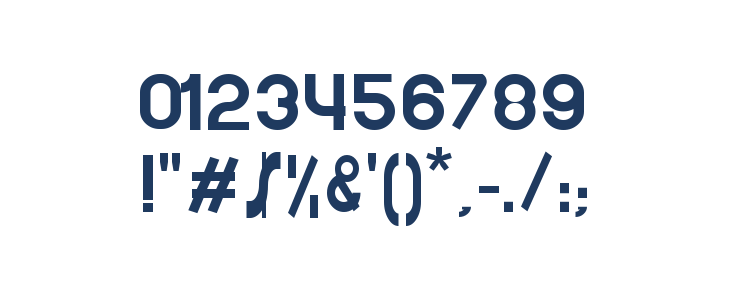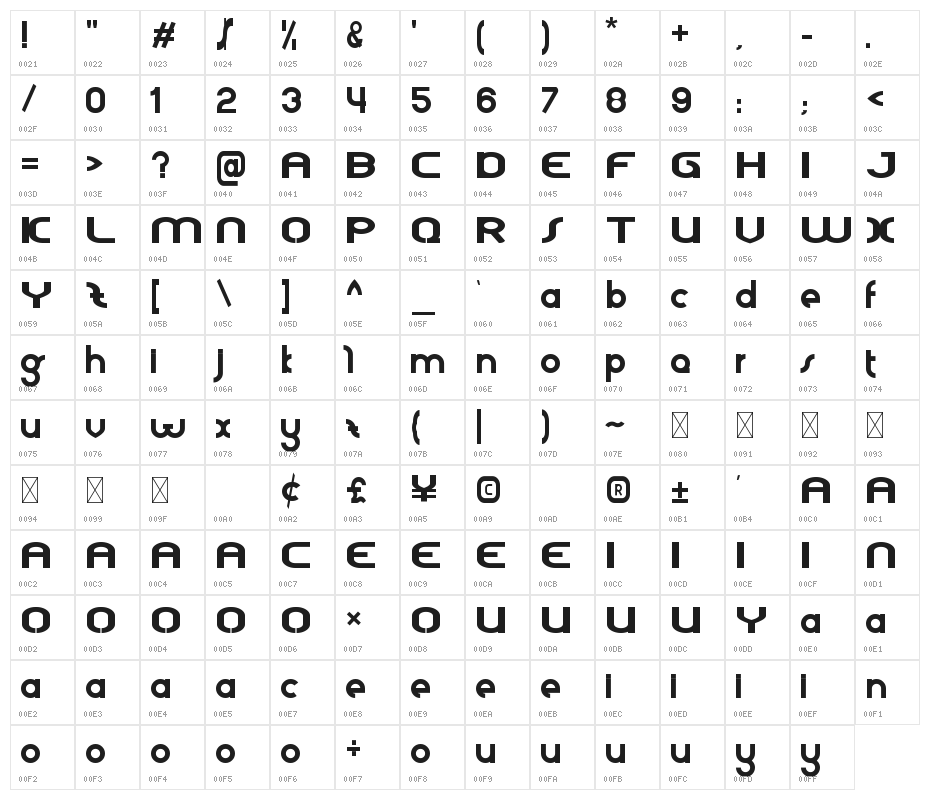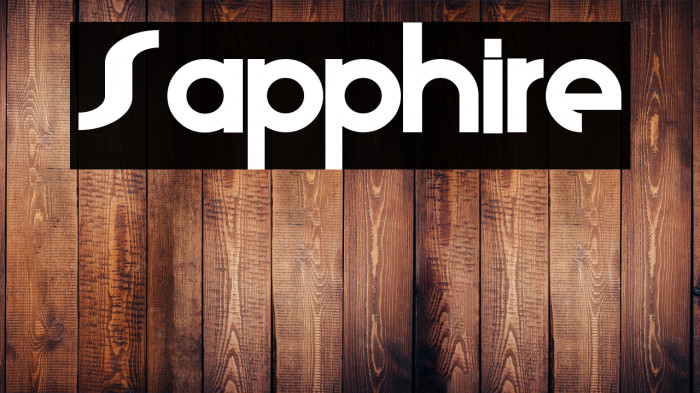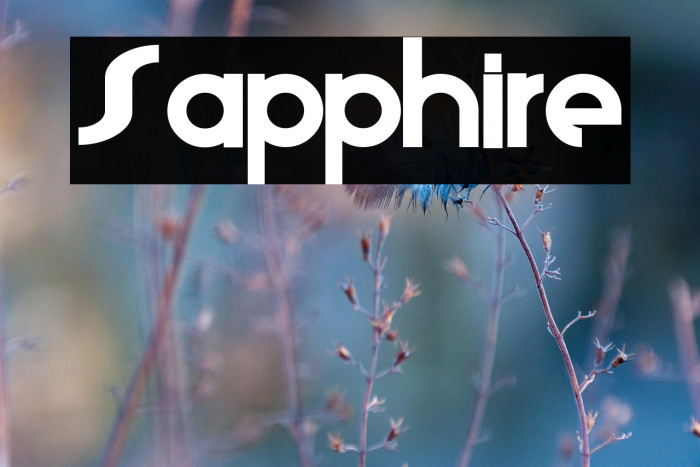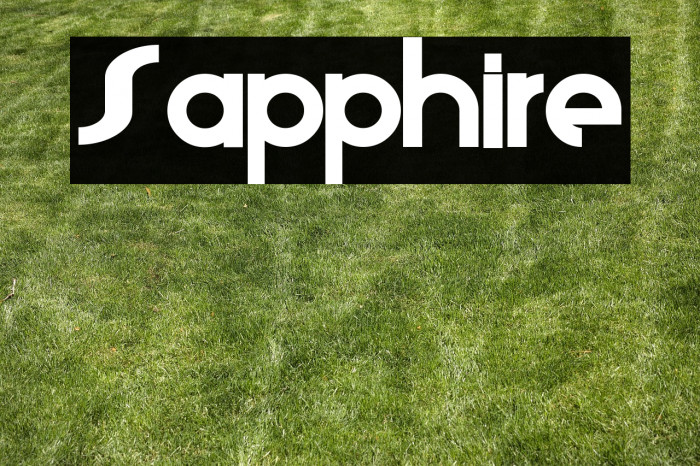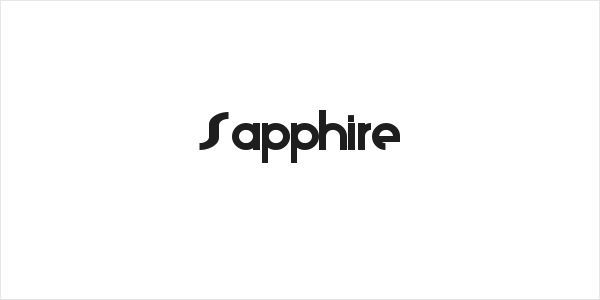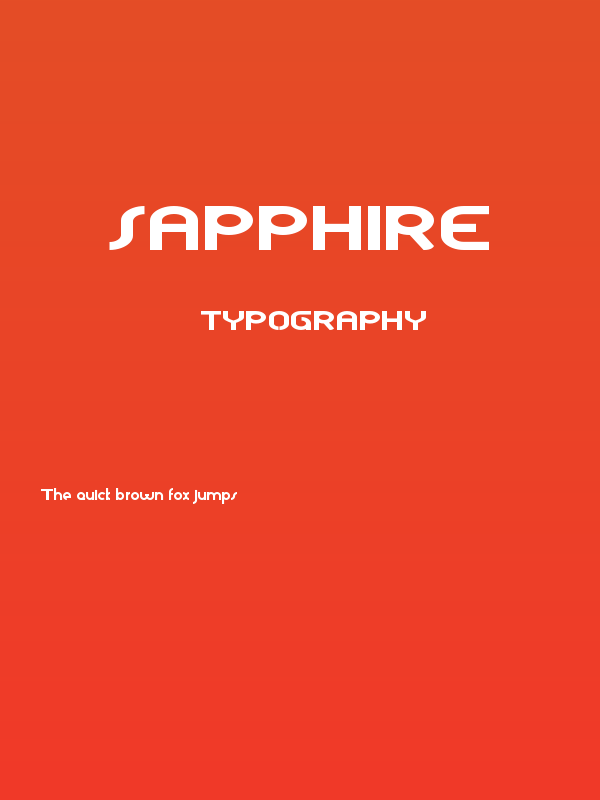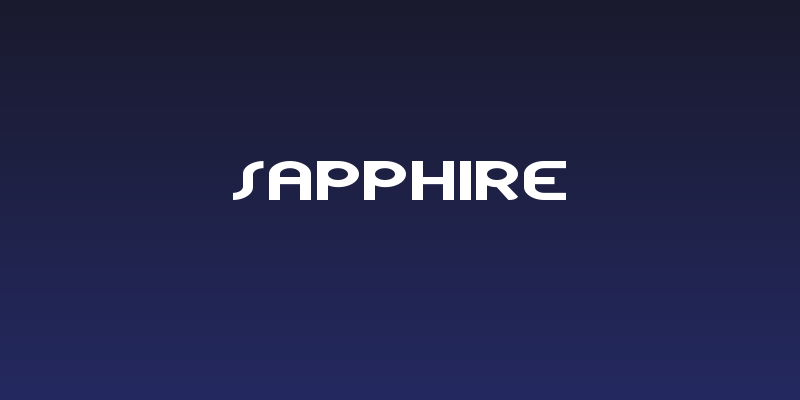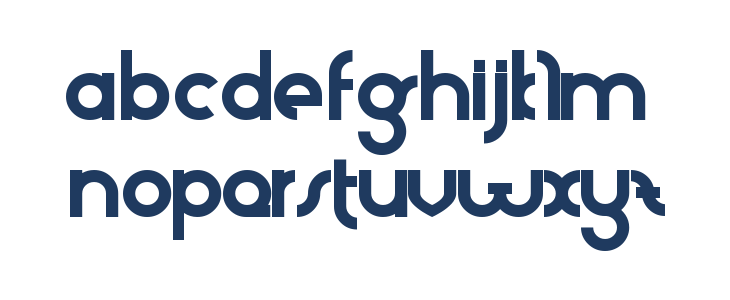
Sapphire Font
Sapphire Description
This font features a bold and modern design with a geometric structure. The characters are crafted with a consistent stroke width, giving it a uniform appearance. The uppercase letters exhibit a unique style with rounded edges and a futuristic touch, while the lowercase letters maintain a similar aesthetic with slightly more curvature. The numerals are clear and bold, matching the overall style of the alphabet. Special characters are designed to complement the alphabet, maintaining the same geometric and modern feel. This font is ideal for projects that require a contemporary and eye-catching look.
| Proposed Projects | Ideal for branding, advertising, headlines, and digital media projects. |